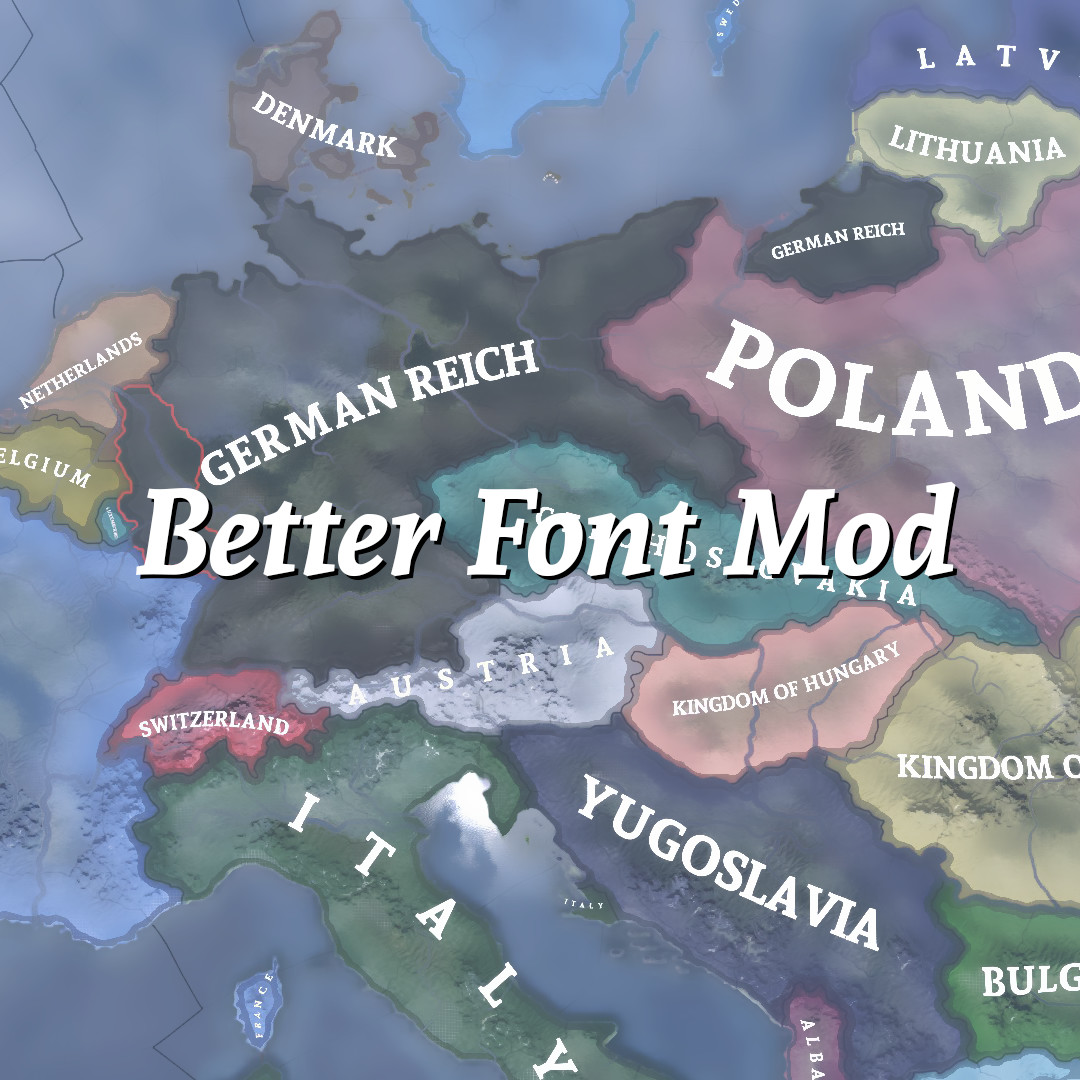
Better Font Mod - White
This mod changes the Country font and City font to one that I think is a lot nicer looking and more readable. Now available in white for enhanced readability! Black Version: https://steamcommunity.com/sharedfiles/filedetails/?id=1448192699
Font used: https://fonts.google.com/specimen/Andada